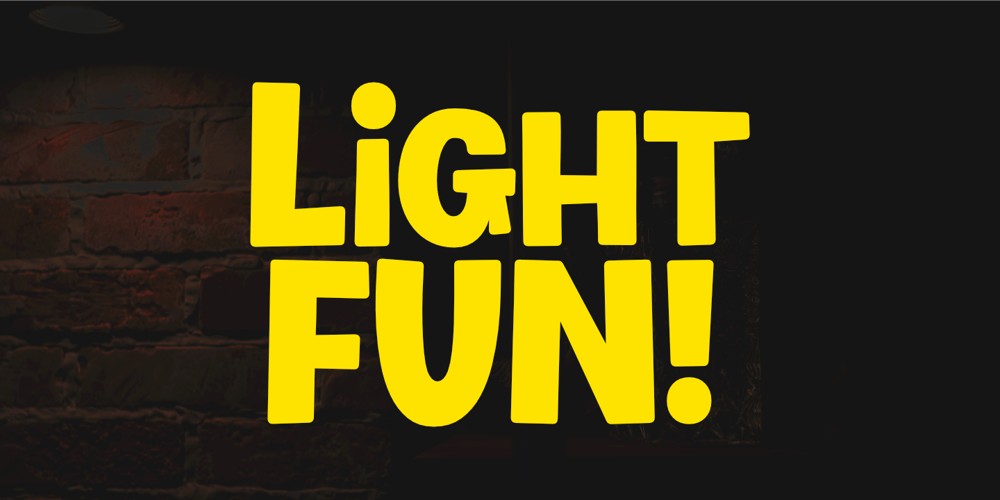
Light Fun Font Family was designed by Aldy Sidik, Nurul Hidayani and published by Olivetype. Light Fun contains 1 styles and family package options. Inspired by pop art and handmade touch, Light Fun is a bold display font that gives off a “light” feeling. Light Fun is playful and fun, but still serious enough for a corporate environment. This typeface is perfect for use in posters, branding, and product packaging. It screams creativity, suitable for a logo, a poster, a product packaging project and more.So what’s included : Basic Latin Uppercase and Lowercase Numbers, symbols, and punctuations Multilingual Support. Accented Characters : ÀÁÂÃÄÅÆÇÈÉÊËÌÍÎÏÑÒÓÔÕÖØŒŠÙÚÛÜŸÝŽàáâãäåæçèéêëìíîïñòóôõöøœšùúûüýÿžß PUA Encoded and fully accessible without additional design software Simple Installations, works on PC & Mac Download Light Fun now and use it in your next project!